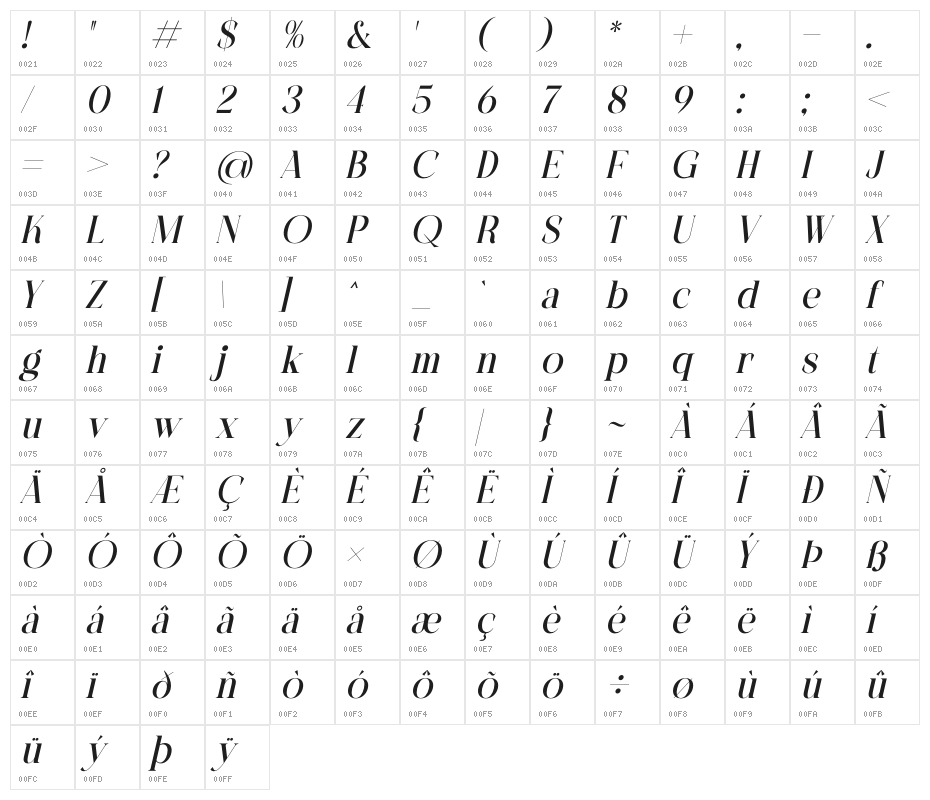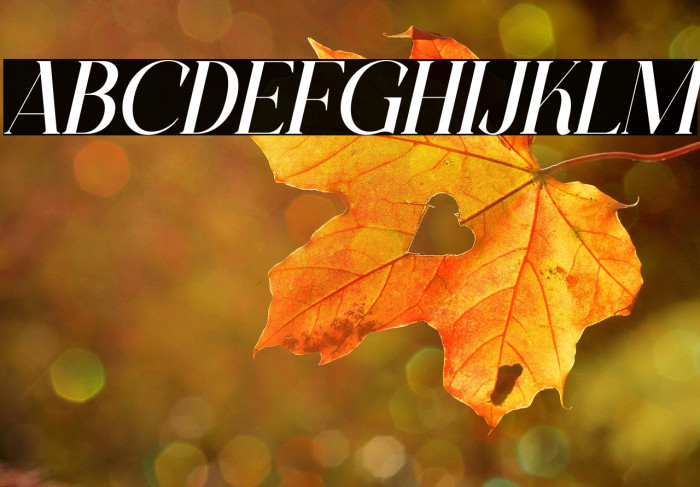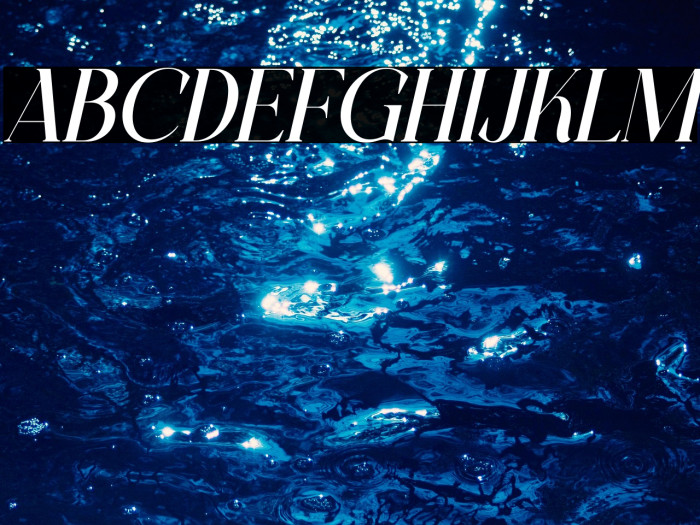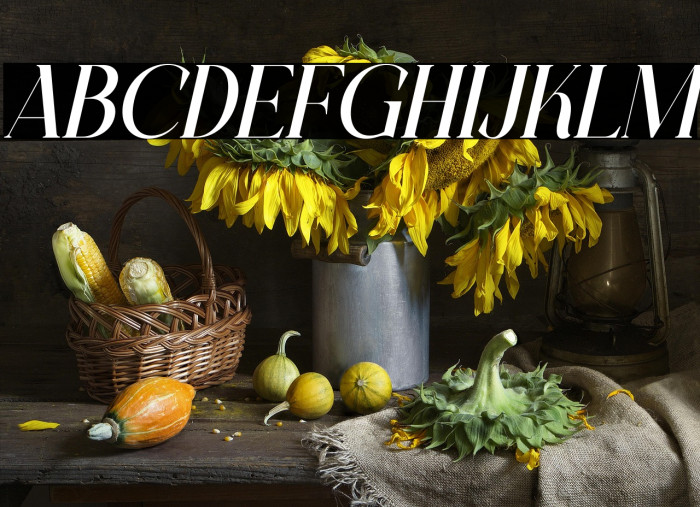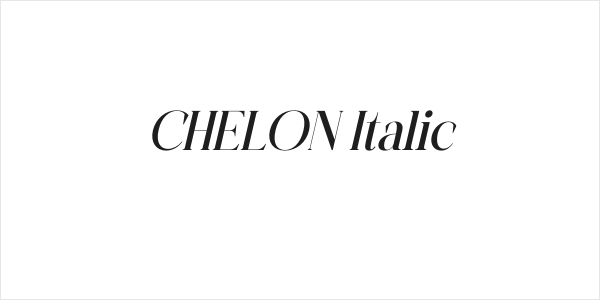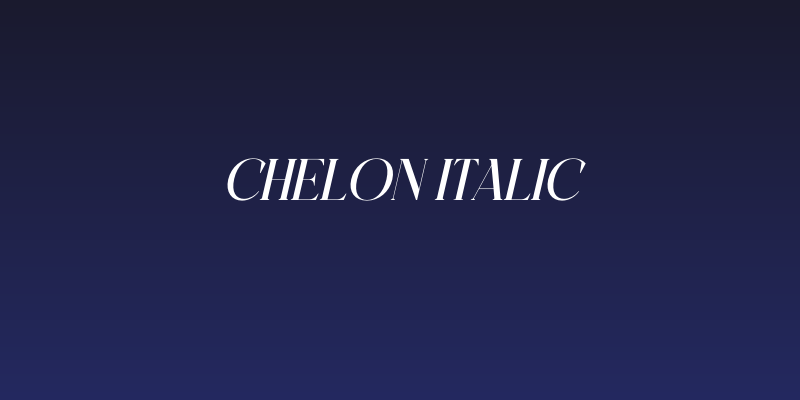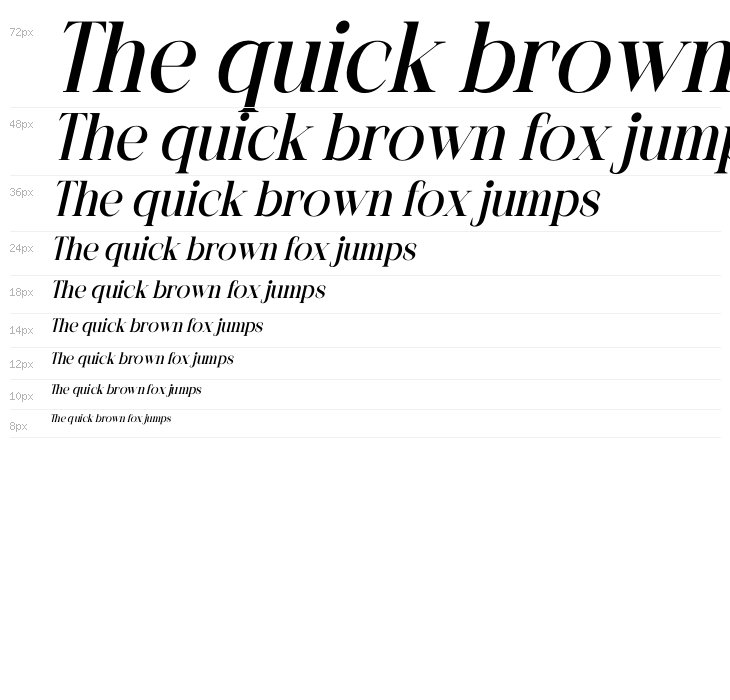
CHELON Italic Font
CHELON Italic Description
This elegant serif font features a sophisticated italic style, characterized by its graceful curves and refined serifs. The letters exhibit a high contrast between thick and thin strokes, adding a touch of classic elegance. The uppercase letters are tall and commanding, while the lowercase letters maintain a harmonious flow. The numerals are styled to match the overall aesthetic, ensuring consistency throughout. Special characters are thoughtfully designed, maintaining the font's cohesive look. This font is ideal for projects that require a touch of sophistication and elegance.
| Use Case | Headlines, Logos, Editorial design |
| Proposed Projects | Perfect for luxury branding, editorial design, wedding invitations, and high-end product packaging. |